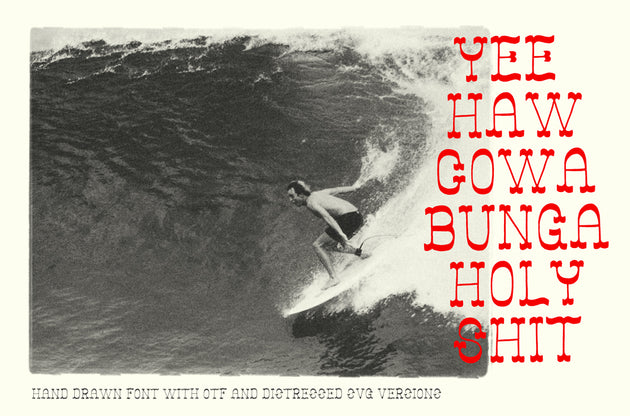
This font looks hand painted because... it was hand painted... outside of a computer.
Yeehaw Cowabunga Holy Shit is hand painted typeface available in 3 weights - Regular, Medium and Bold, and there is a distressed version of the Regular weight. This OTF font with SVG options was made with marker pen, and the distinct strokes can add life to any design.
The OTF versions of Yeehaw Cowabunga Holy Shit Font are infinitely scalable. They still possesses the nuance of a hand lettered font, while working just like any other font in your font library.